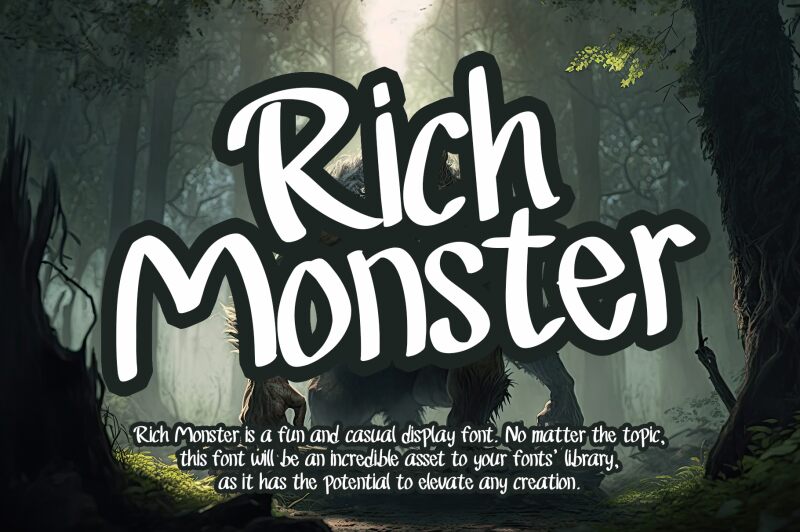
Rich Monster font by Letterafa Studio is a free handwritten font with an energetic, modern flair and a casual vibe. Lettering and typography are finicky art forms; a single imperfect character can destroy the overall aesthetics. For this reason, hand-crafted letters are often hard to digitize and reproduce. As a font, Rich Monster solved these problems for you. Uniform but simultaneously informal and dynamic, these letters are guaranteed to make a visual impact.